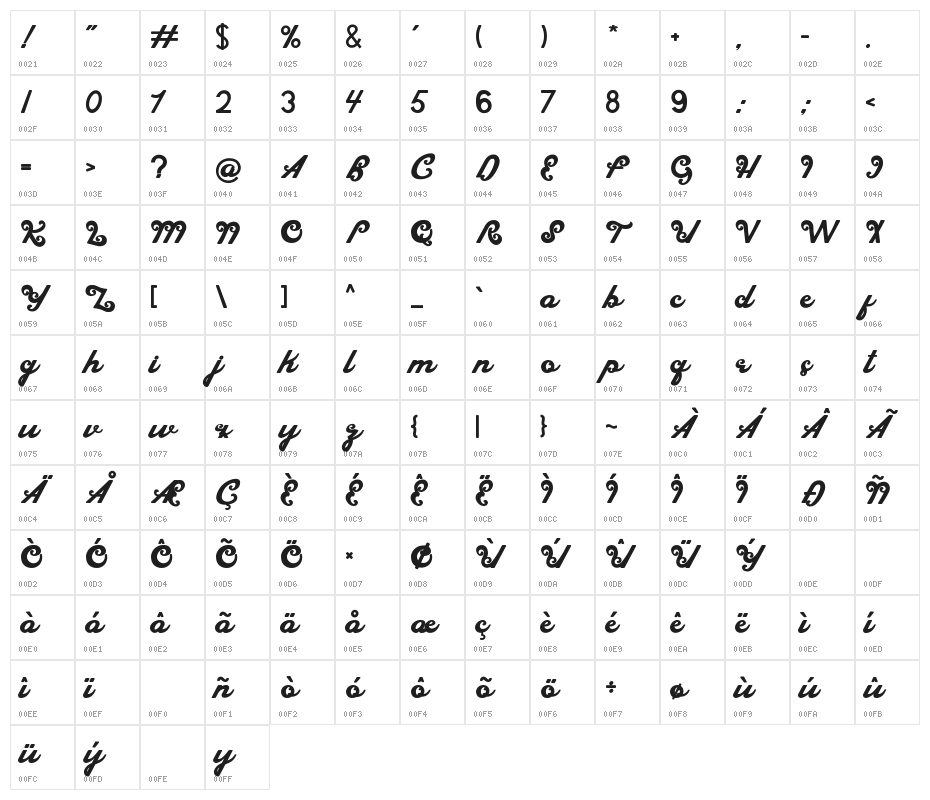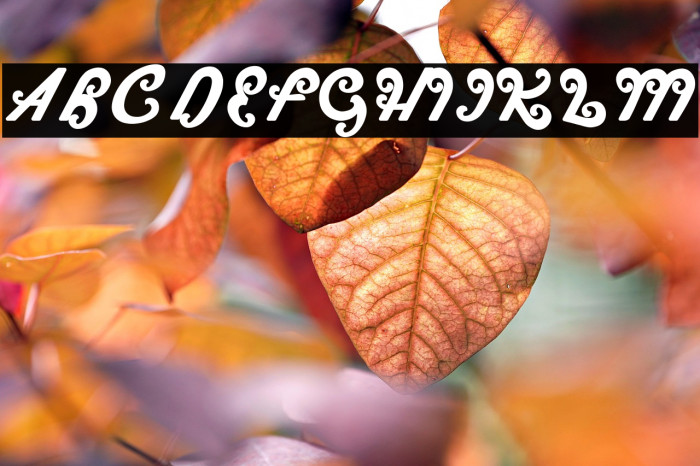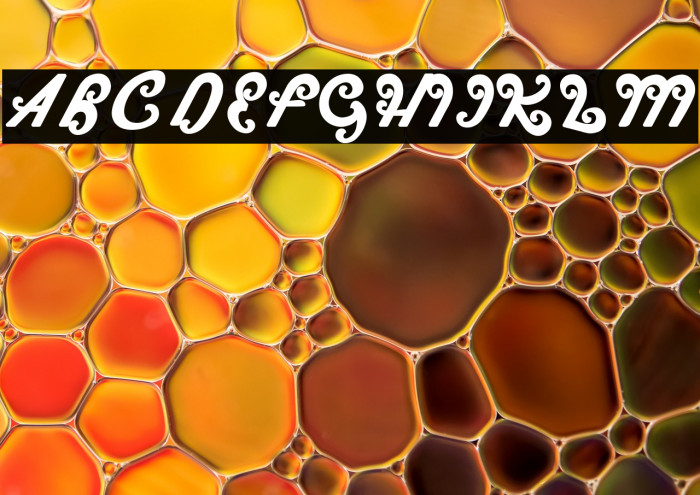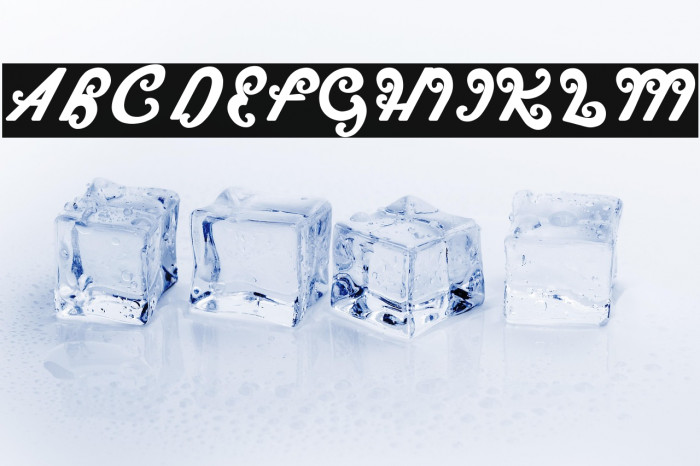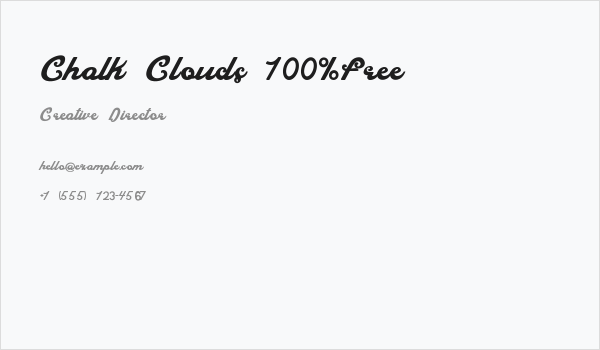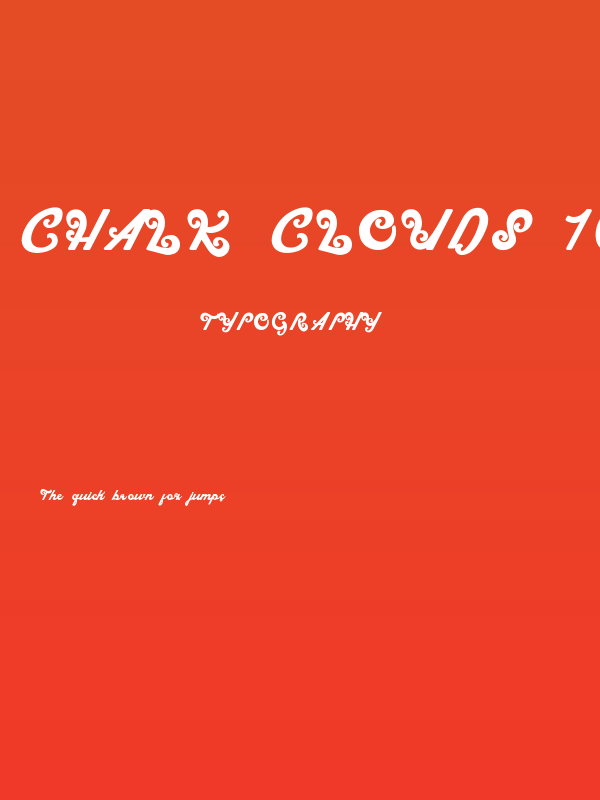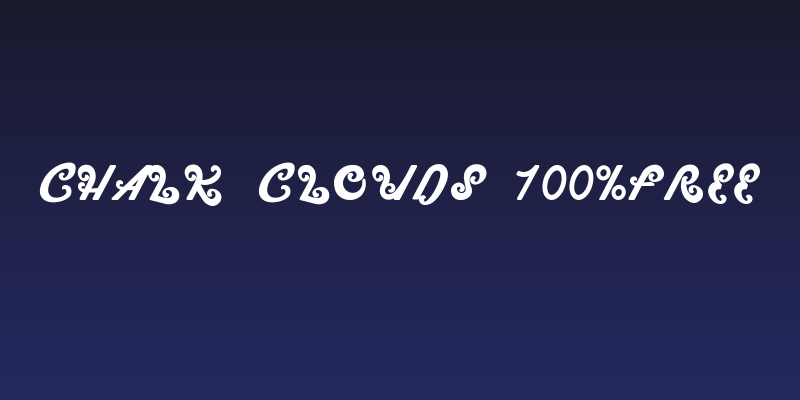
Chalk Clouds 100%Free Font
Chalk Clouds 100%Free Description
This font features a playful and whimsical style with a strong decorative flair. The uppercase letters have a unique, curly design that adds a sense of fun and creativity. The lowercase letters maintain a smooth, flowing script-like appearance, enhancing the font's overall charm. Numbers and special characters are bold and consistent with the font's decorative theme, making them stand out. The font's bold weight and high contrast in stroke thickness contribute to its eye-catching nature, making it suitable for creative and artistic projects.
| Proposed Projects | Ideal for children's book covers, playful branding, greeting cards, and creative posters. |